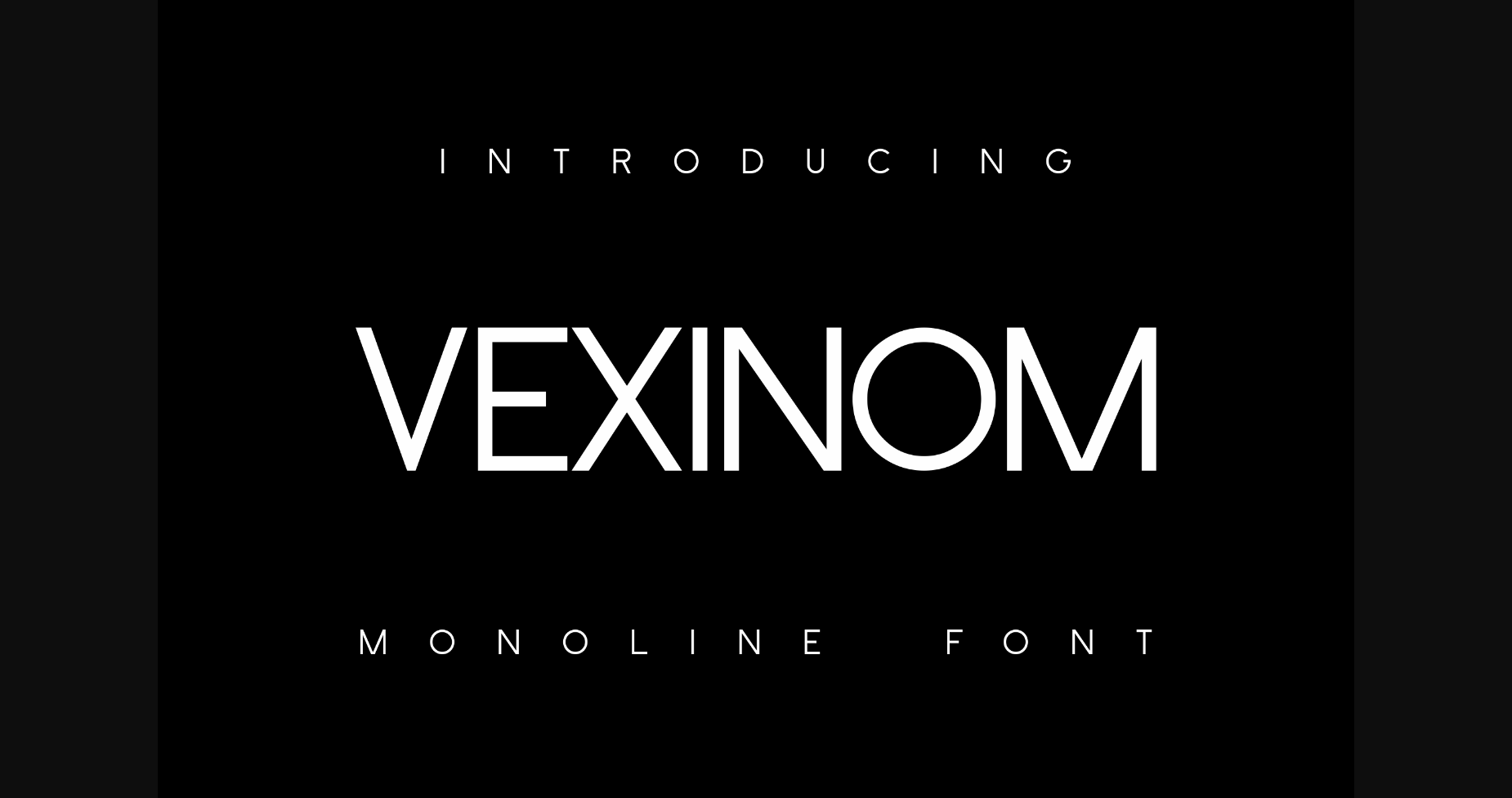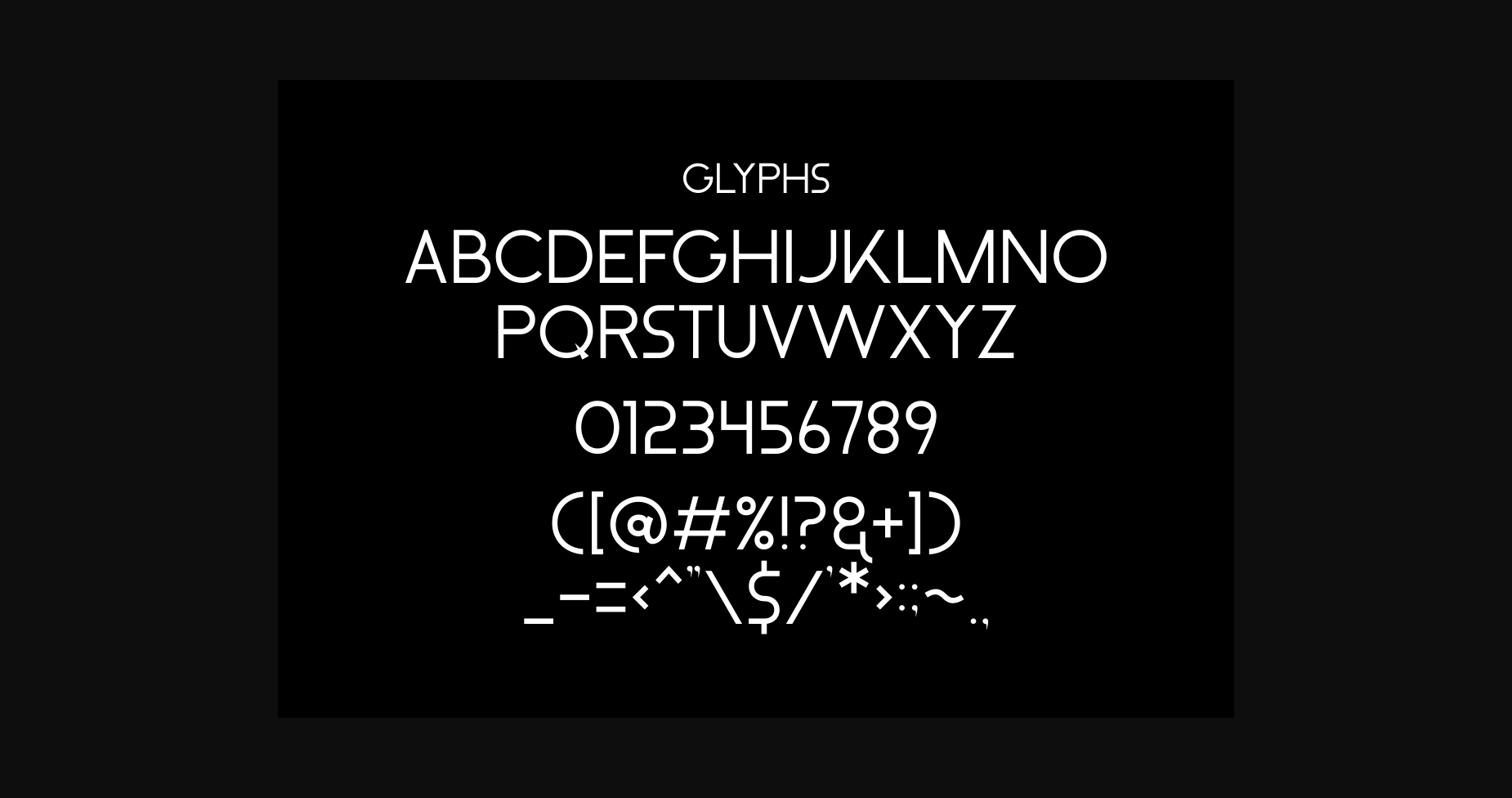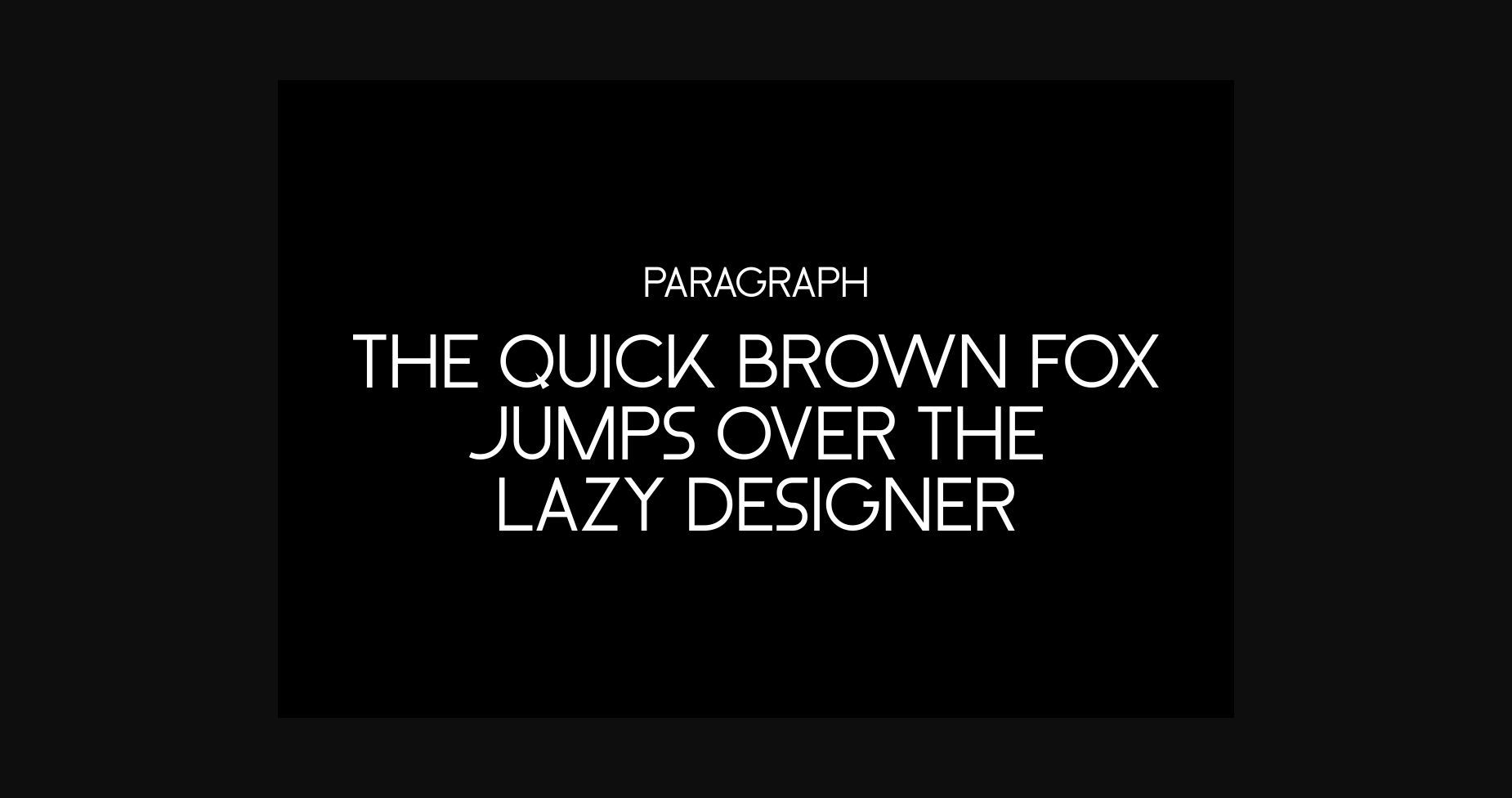
HomeSans Serif FontsVexinom Font Sans Serif Fonts Vexinom Font FacebookXPinterestWhatsApp 1 of 5 ... Vexinom Font Poster 2... Vexinom Font Poster 3... Vexinom Font Poster 4... Vexinom Font Poster 5... About Vexinom Font Vexinom is a standard monoline font that has a strong and firm character. Its classic form makes it suitable for us on a variety of products. DOWNLOAD NOW People also explored Journey to Thailand Font Mathematics Font Levina Monogram Font Font Sebastien Start Today Font Wednesday Font southamton Highest Script Font Story Ghosting Font 396 0 TagsVexinomVexinom Font Previous articleStar Vintage FontNext articleFarmerhouse Font LEAVE A REPLY Cancel reply Comment: Please enter your comment! Name:* Please enter your name here Email:* You have entered an incorrect email address! Please enter your email address here Website: Save my name, email, and website in this browser for the next time I comment. Personal Use Free Hello December Personal Use Free Read more about this font Child Writing Free Personal Use Free Read more about this font Jurnal Personal Use Free Read more about this font Satori Personal Use Free Read more about this font BLOG Transform Your Website: Elevate Your Typography with 7 Best Web Font Generators Are you ready to transform your website's typography from ordinary to extraordinary? Great! Today, we're diving into the world of web font generators, which... Best Fonts for YouTube Videos: Make Your Thumbnails Stand Out Top 10 Handwritten Fonts That Elevate Your Designs Best Fonts for T-Shirt Design – Top 2025 Picks